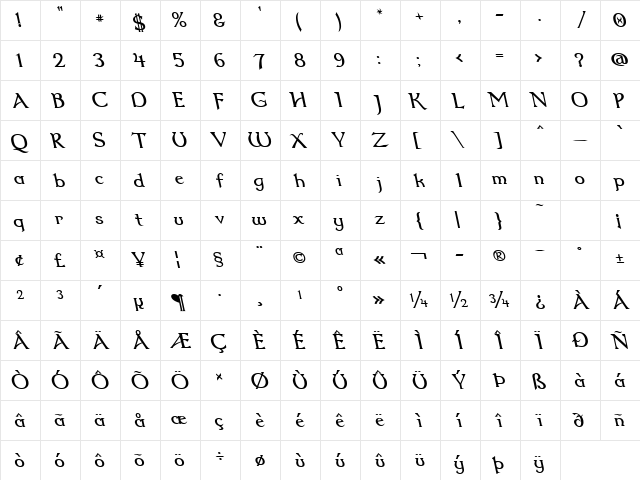
Dumbledor 2 Rev Italic Regular
Design Context for Dumbledor 2 Rev Italic Typeface
Dumbledor 2 Rev Italic is a composed and adaptable typeface that performs quietly and consistently across a wide range of design contexts. The dynamic lean of this cut emphasises speed and emphasis in any layout.